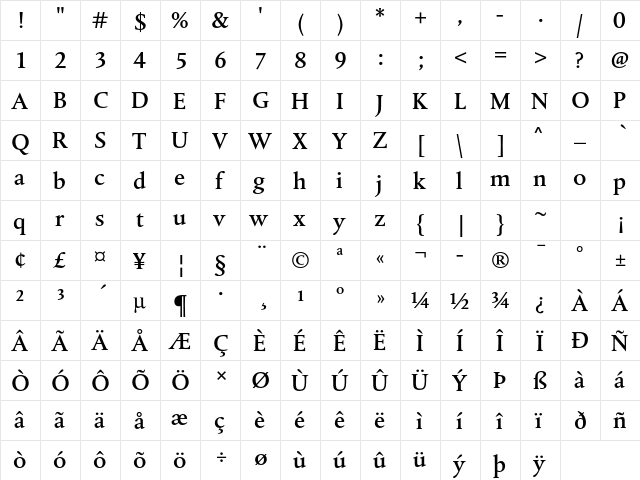
Albertina MT Std Medium
Design Context for Albertina MT Std Typeface
Albertina MT Std takes a measured approach to typography — its balanced proportions and neutral character make it a reliable workhorse for both digital and print work.